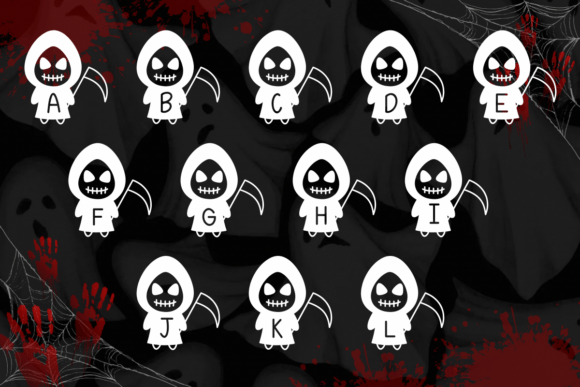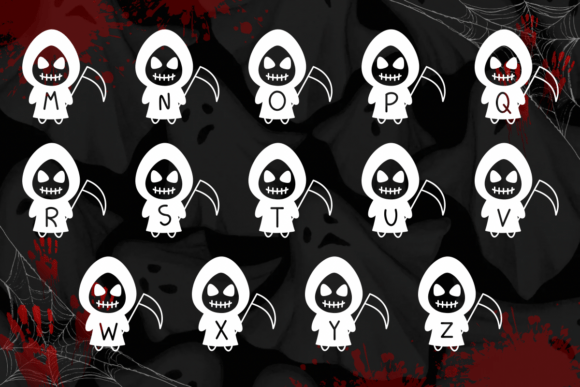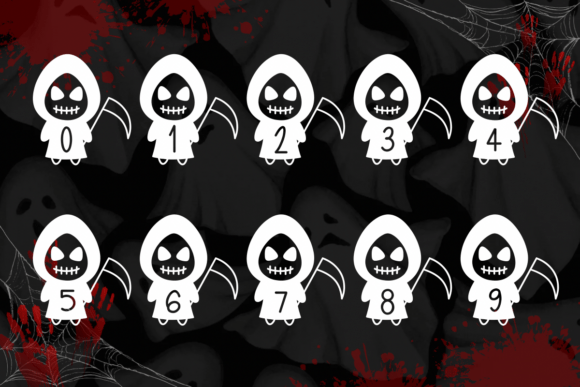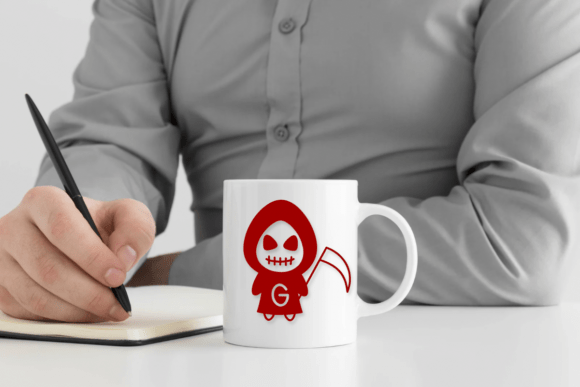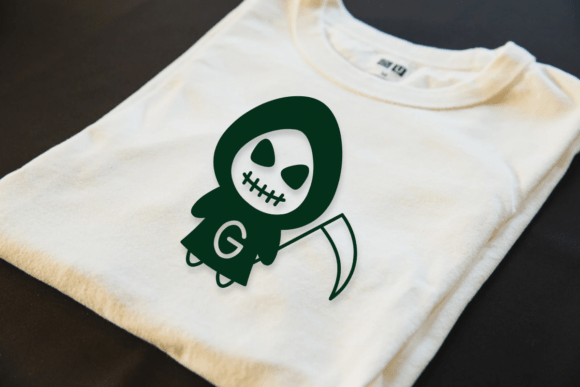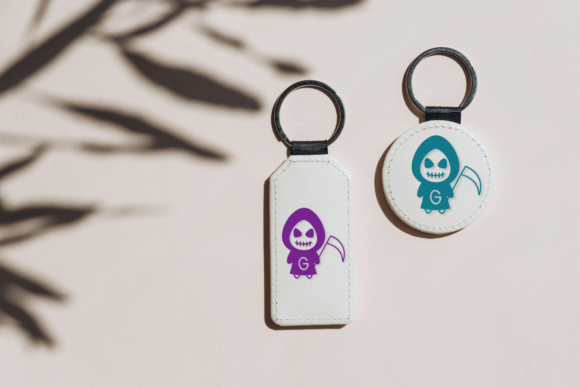
Unleash the Spirit of Halloween with the Grim Reaper Font
As the spookiest time of the year approaches, designers and crafters are on the lookout for the perfect typography to bring their Halloween projects to life. Look no further than the Halloween Grim Reaper Font, a decorative typeface that embodies the playful yet eerie essence of the holiday. This font is a game-changer for anyone looking to add a touch of whimsy and fright to their designs.
The Design
The Halloween Grim Reaper Font is a masterful blend of playful and spooky elements. Each letter is carefully crafted to represent a stylized Grim Reaper character, complete with a hooded cloak, skeletal grin, and scythe. The design consistency across the font gives it a cohesive look, while the subtle variations between characters add a fun sense of personality. The bold, high-contrast silhouettes make it perfect for creating standout titles, posters, party invitations, stickers, and Halloween crafts.
A Balance of Fun and Fright
What sets the Halloween Grim Reaper Font apart is its ability to strike a balance between fun and fright. The cartoonish vibe is child-friendly, making it suitable for playful Halloween projects, while the eerie undertones add a touch of spookiness that’s perfect for those who dare to be more adventurous. This versatility makes the font ideal for a wide range of applications, from kids’ party invitations to eerie Halloween posters.
Whether you’re a professional designer or a crafty enthusiast, the Halloween Grim Reaper Font is a valuable addition to your toolkit. Designers will appreciate the font’s bold, eye-catching design, which is sure to make their Halloween projects stand out. Crafters, on the other hand, will love the font’s versatility and ease of use, making it perfect for a variety of DIY projects, such as:
- Halloween party invitations and decorations
- Eerie posters and flyers
- Spooky stickers and decals
- Halloween crafts, such as pumpkin carvings and haunted house signs
Tips for Using the Halloween Grim Reaper Font
To get the most out of the Halloween Grim Reaper Font, here are a few tips:
- Use it as a headline font to add a bold, eye-catching touch to your designs
- Combine the font with other Halloween-themed graphics and illustrations to create a cohesive look
- Don’t be afraid to get creative and use the font in unexpected ways, such as in patterns or textures
- Decorative typeface with stylized Grim Reaper characters
- Bold, high-contrast silhouettes for standout designs
- Consistent design with subtle variations between characters
- Child-friendly cartoonish vibe with eerie undertones
- Perfect for Halloween projects, including party invitations, posters, stickers, and crafts
Whether you’re a seasoned designer or a crafty enthusiast, the Halloween Grim Reaper Font is sure to become a favorite in your collection. So go ahead, get creative, and have a Happy Halloween!